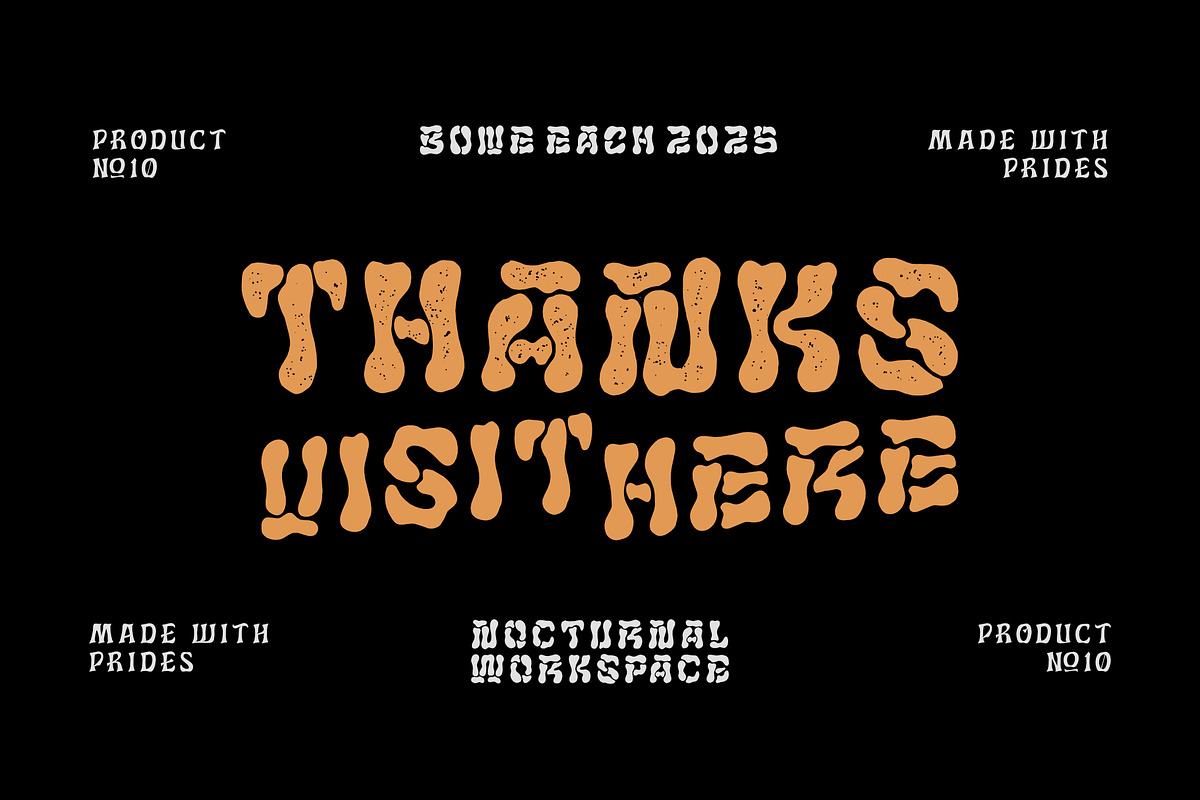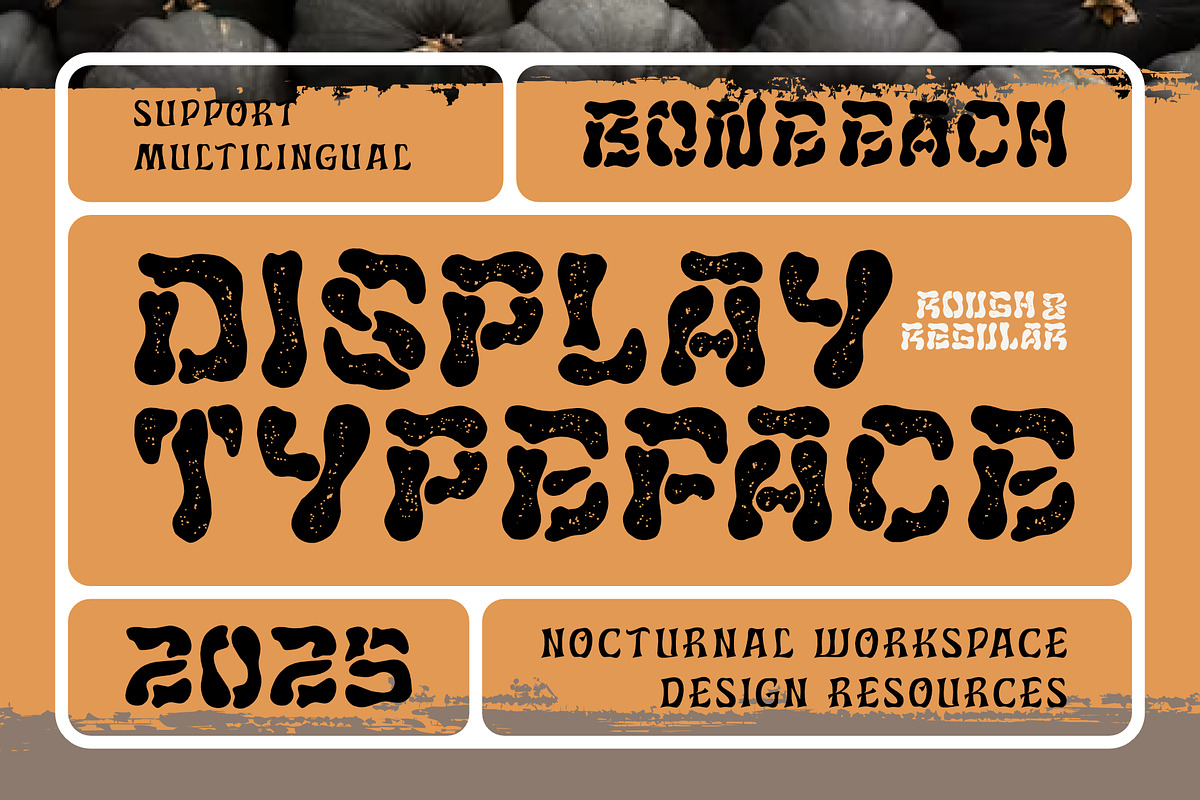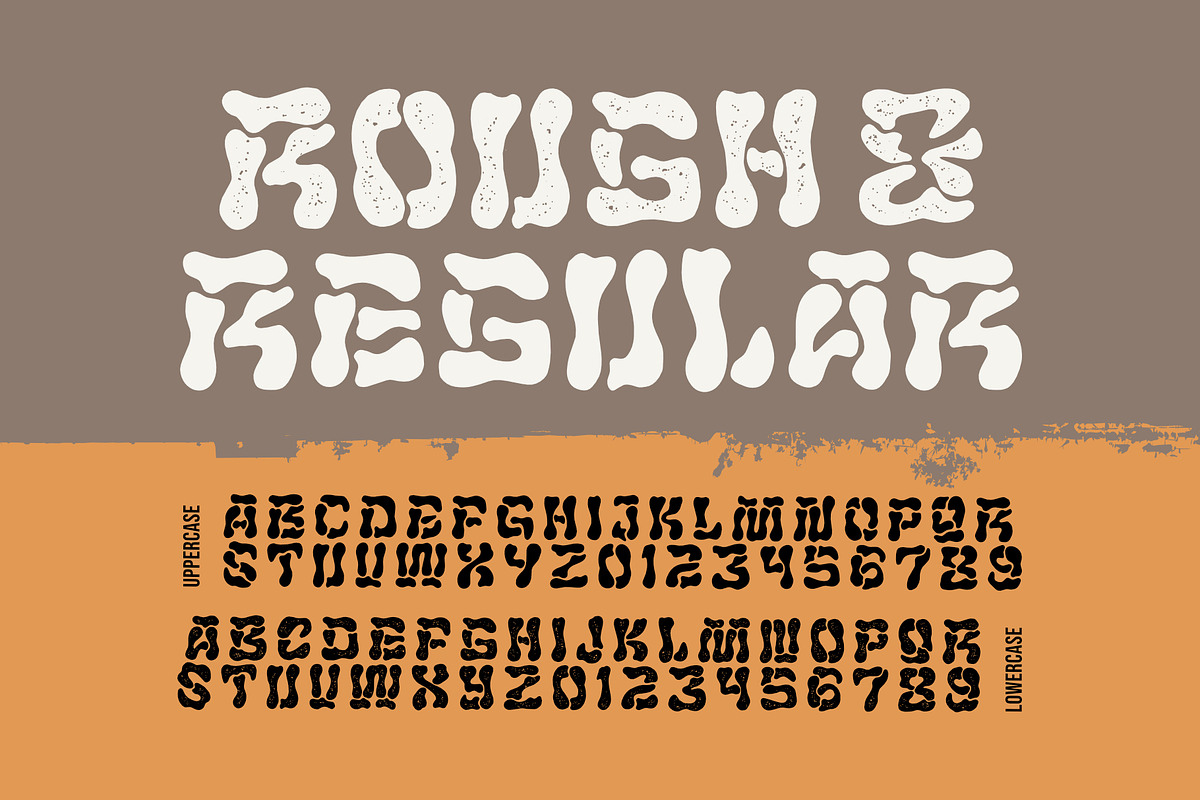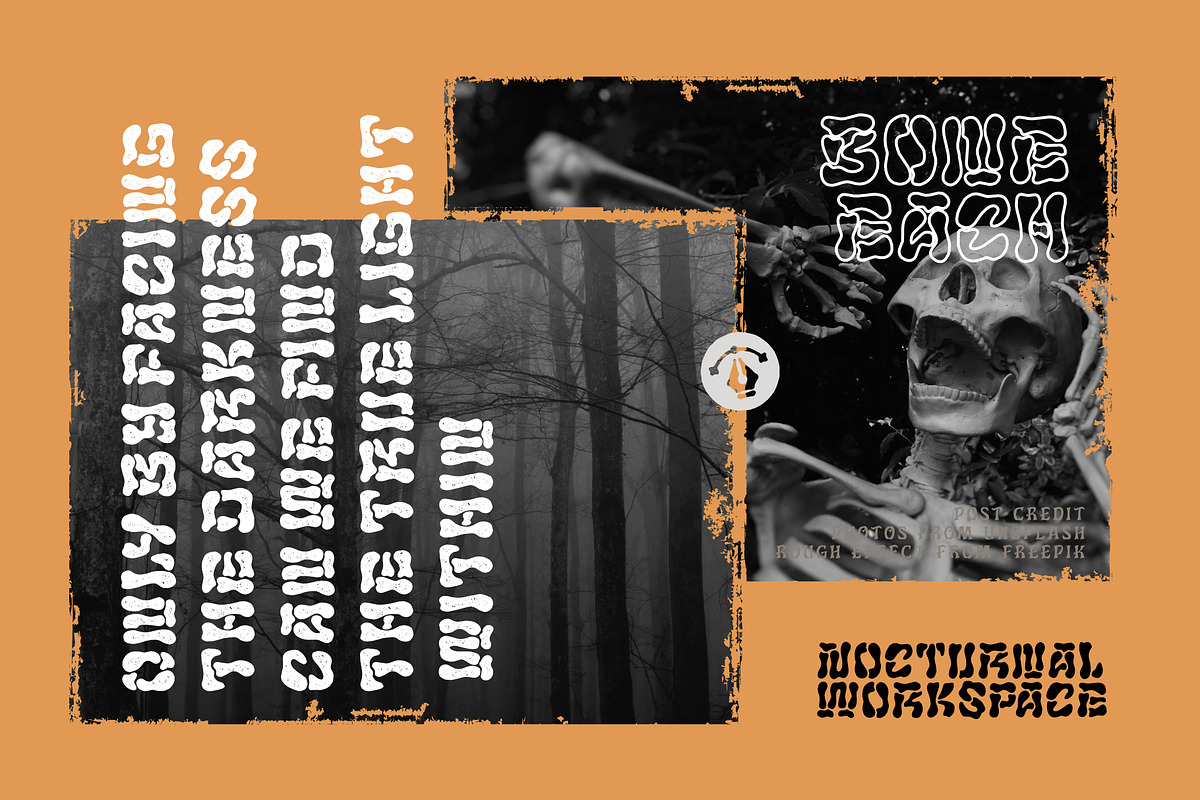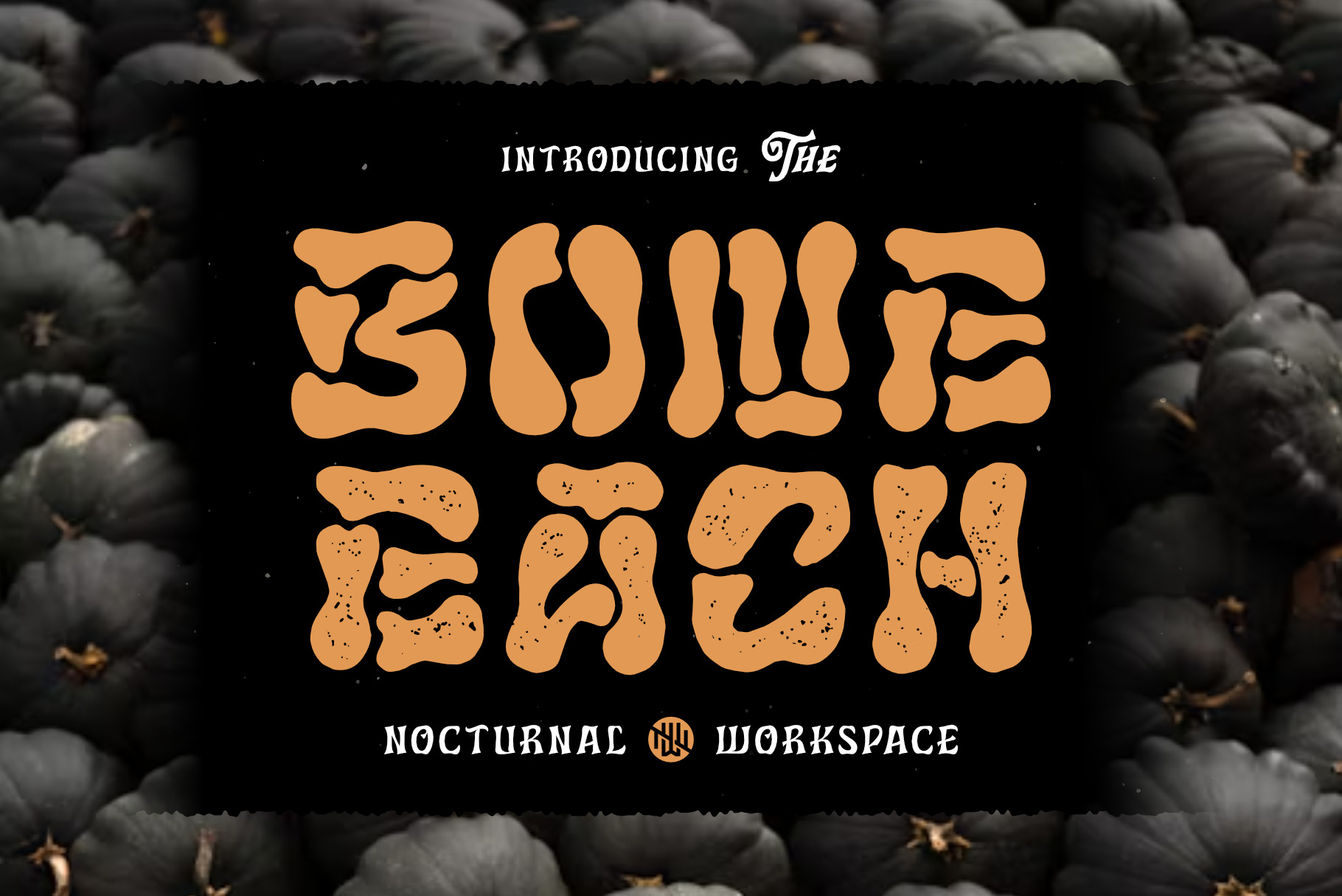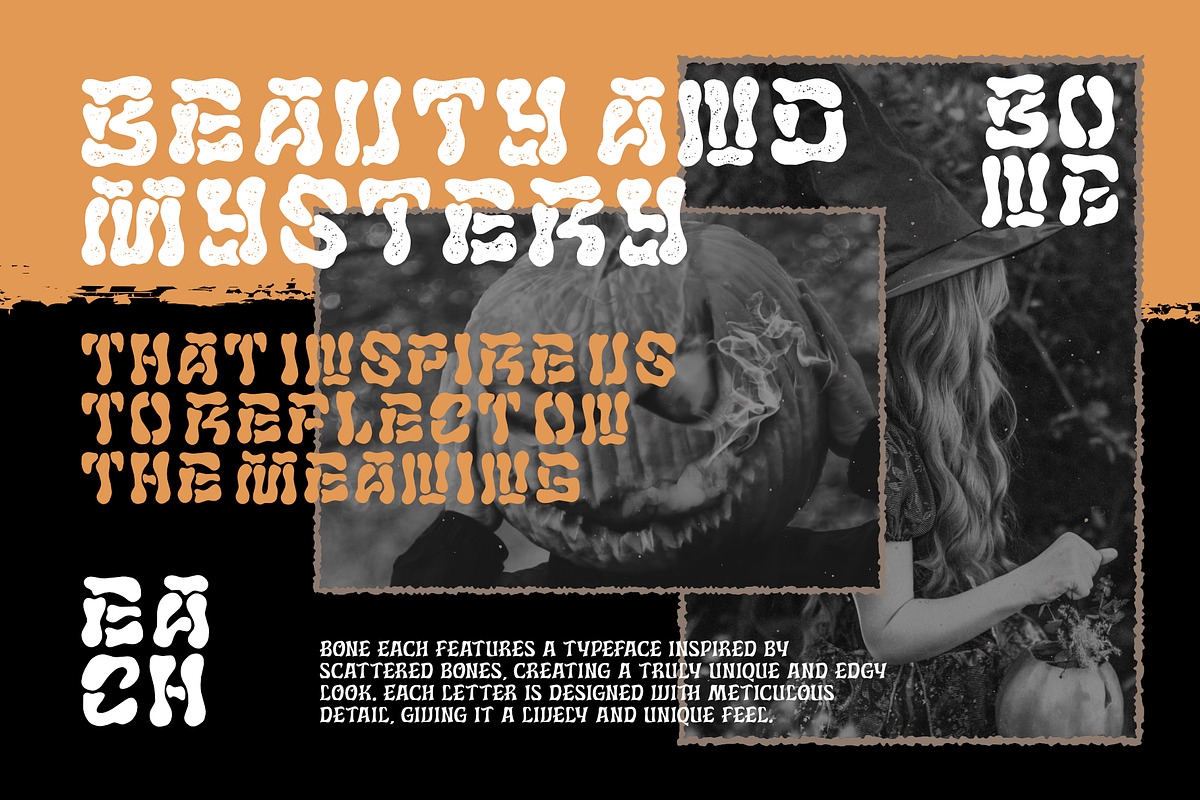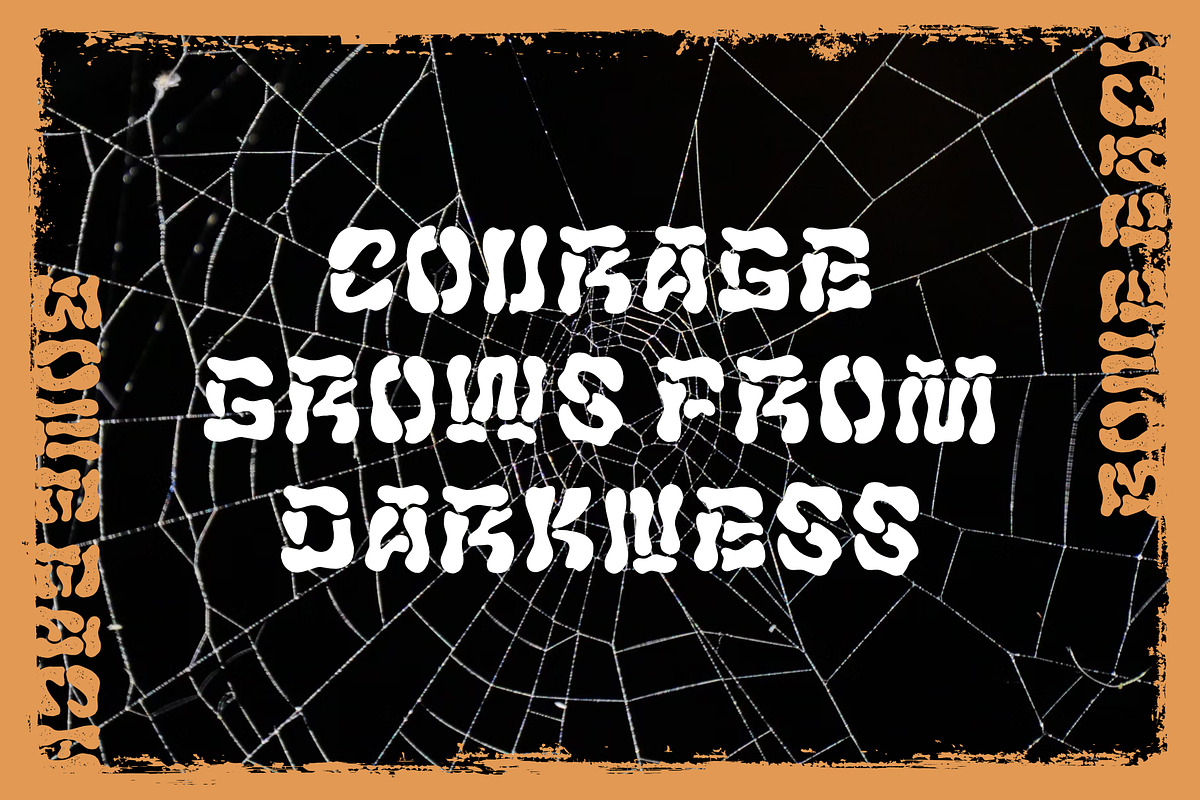
Bone Each Font
Bone Each features a typeface inspired by scattered bones, creating a truly unique and edgy look. Each letter is designed with meticulous detail, giving it a lively and playful feel.
This font is perfect for a variety of creative projects such as Halloween, party invitations, tourism posters, product branding, and marketing materials that require a unique and interesting touch. Bone Each also includes a variety of characters, including uppercase letters, numbers, and symbols, all designed to convey an attractive and elegant impression.